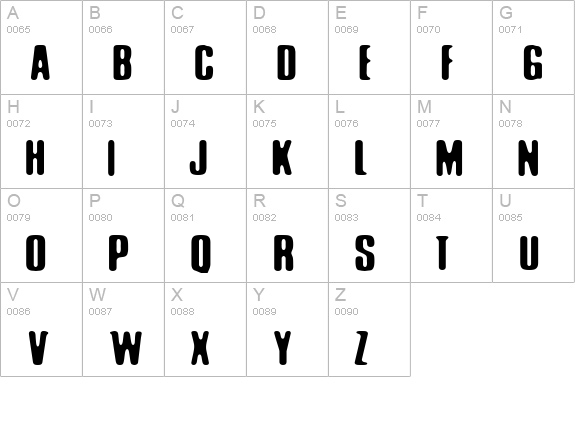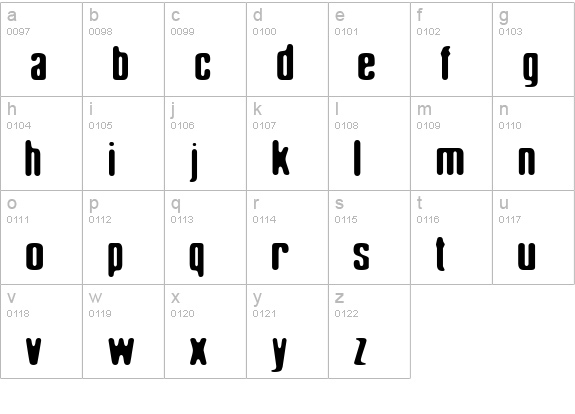
Elliot_Swonger 2 Font Details
The Elliot_Swonger 2 font is a stylish and modern typeface that exudes sophistication and elegance. Its sleek lines and refined curves make it perfect for a wide range of design projects, from branding to editorial work. This versatile font is sure to make your text stand out and leave a lasting impression. What's even better is that Elliot_Swonger 2 is completely free to download at FontsMarket.com. Yes, you read that right - this high-quality font is available at no cost, making it accessible to all designers and creatives looking to add a touch of class to their work. Don't miss out on this fantastic opportunity to enhance your projects with the Elliot_Swonger 2 font. Download it for free today and elevate your designs to the next level.